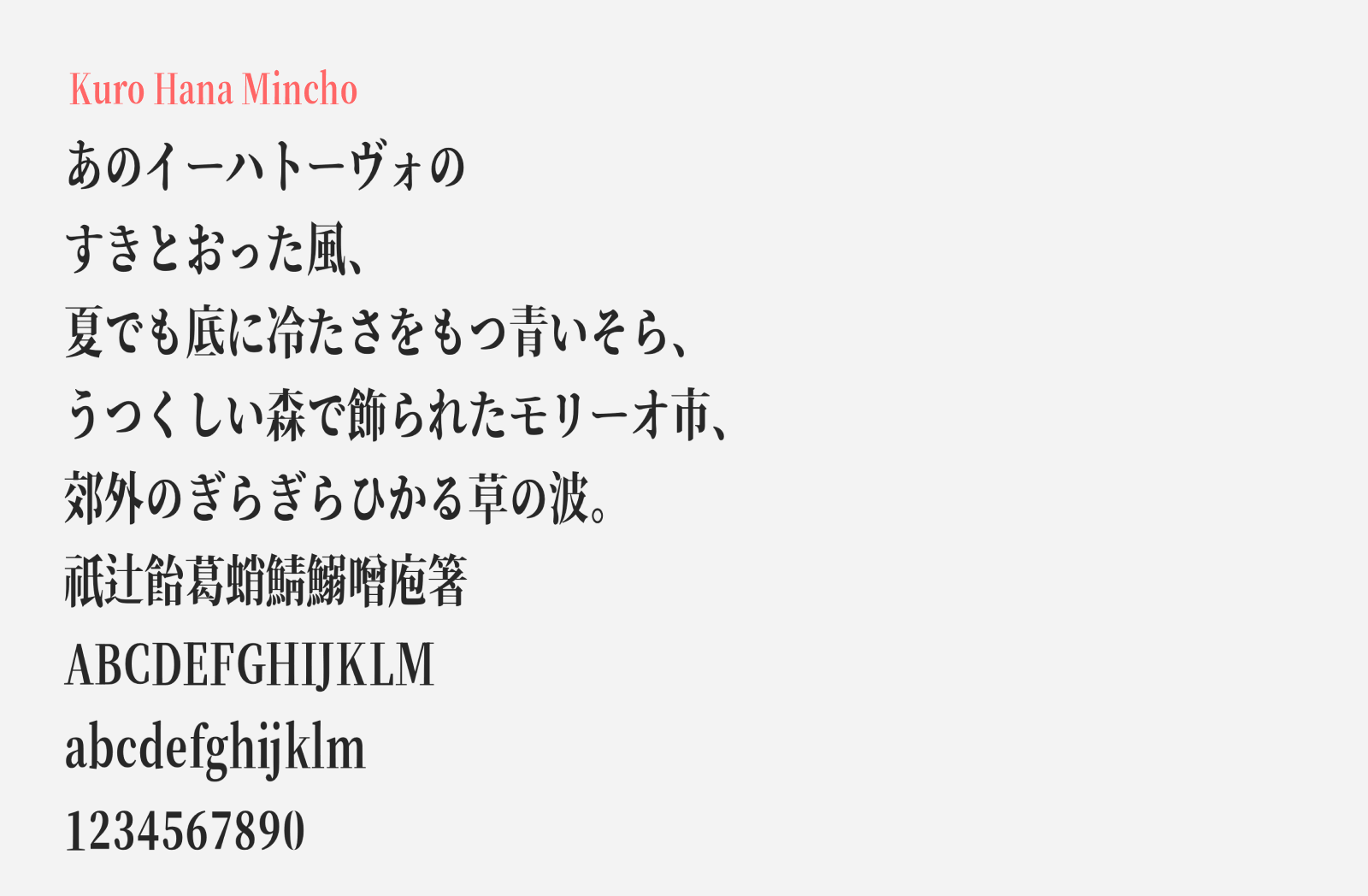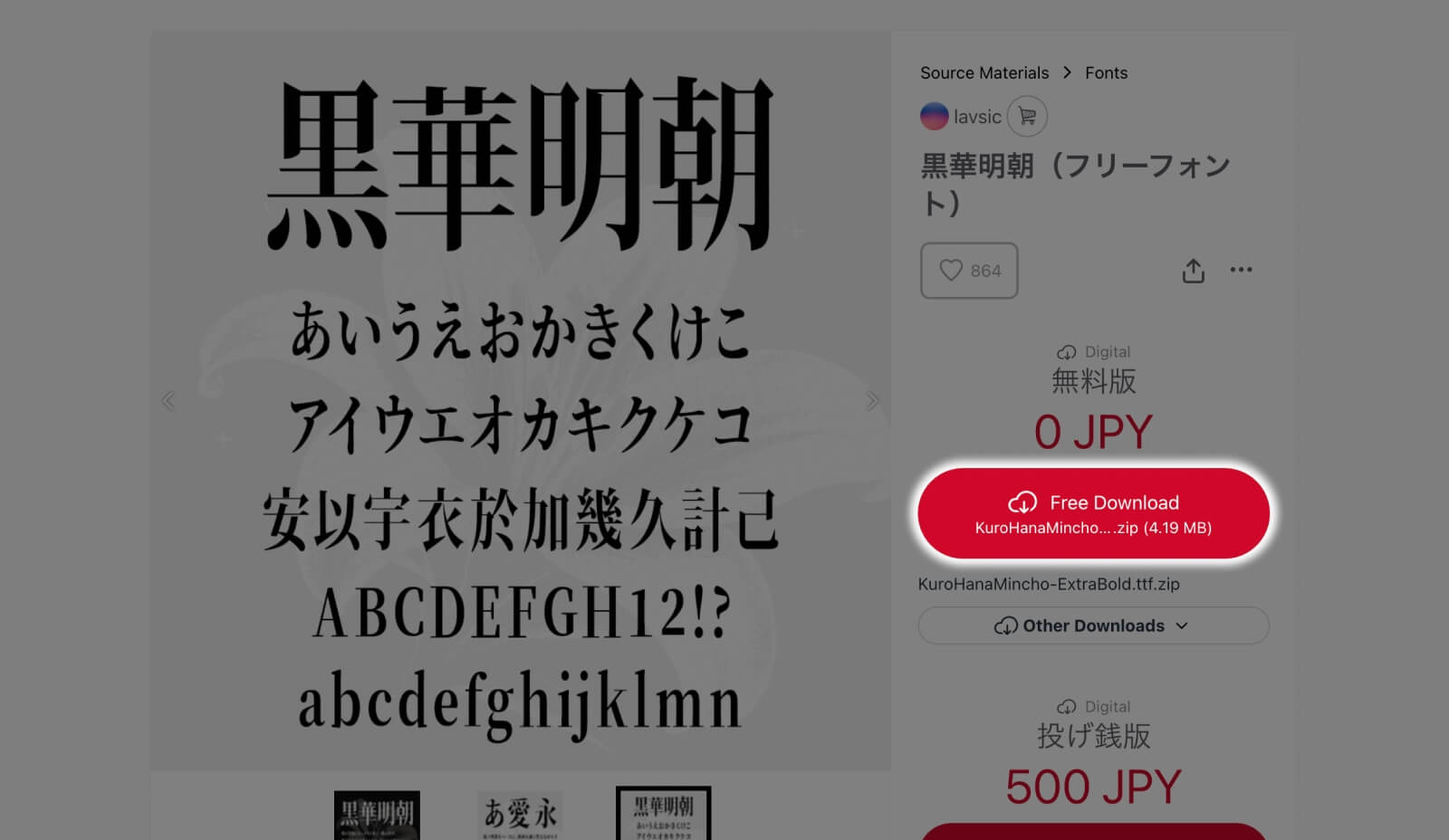
Kuro Hana Mincho
Kuro Hana Mincho (黒華明朝) is a free Japanese mincho (serif) font by lavsic, derived from the widely used open-source typeface Source Han Serif (源ノ明朝). Where many font modifications aim for neutrality, Kuro Hana Mincho takes a decidedly artistic direction: the horizontal strokes have been refined to appear thinner, and the overall proportions have been adjusted toward a condensed, vertically elongated form. The effect is a typeface that feels slender and upright, with an elegance that the creator describes as evoking the beauty of flower petals. The sharpness at the stroke terminals and the fluid, flowing lines are designed to conjure a sense of glamour and a certain bewitching allure, like a blossoming flower, hence the name “Kuro Hana” (黒華), meaning “dark flower.”
The font is available in an ExtraBold weight, making it particularly striking for display settings such as titles, posters, video thumbnails, and game UI. The creator notes that because the modification process was largely automated, some characters may appear slightly misshapen. Kuro Hana Mincho is released under SIL Open Font License 1.1 and is free to use for both personal and commercial purposes, including embedding in videos, thumbnails, and games.
- Hiragana and Katakana
- Kanji (Up to full JIS Level 4 support)
- Alphanumerics
- Latin and Cyrillic scripts
- Symbols and Punctuations